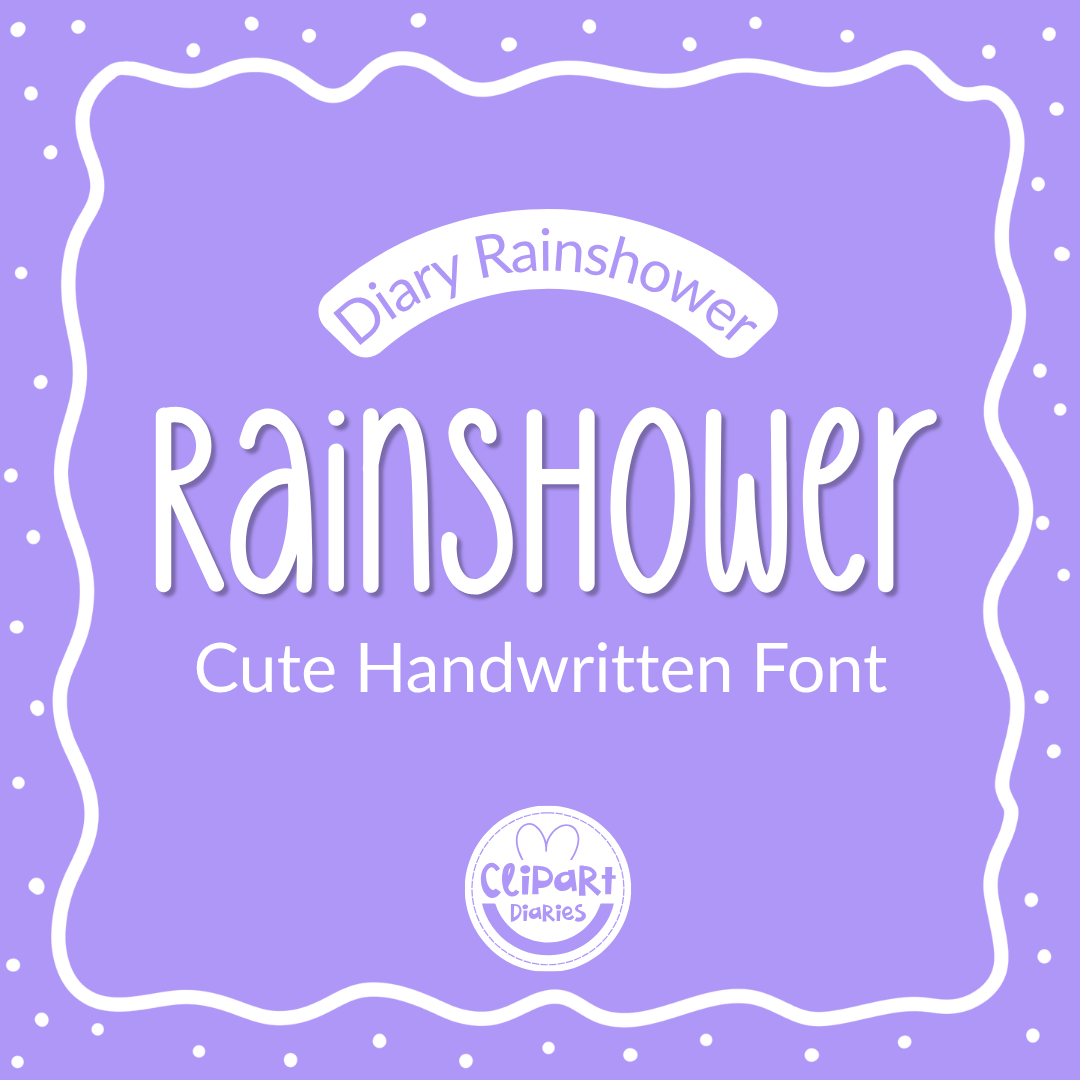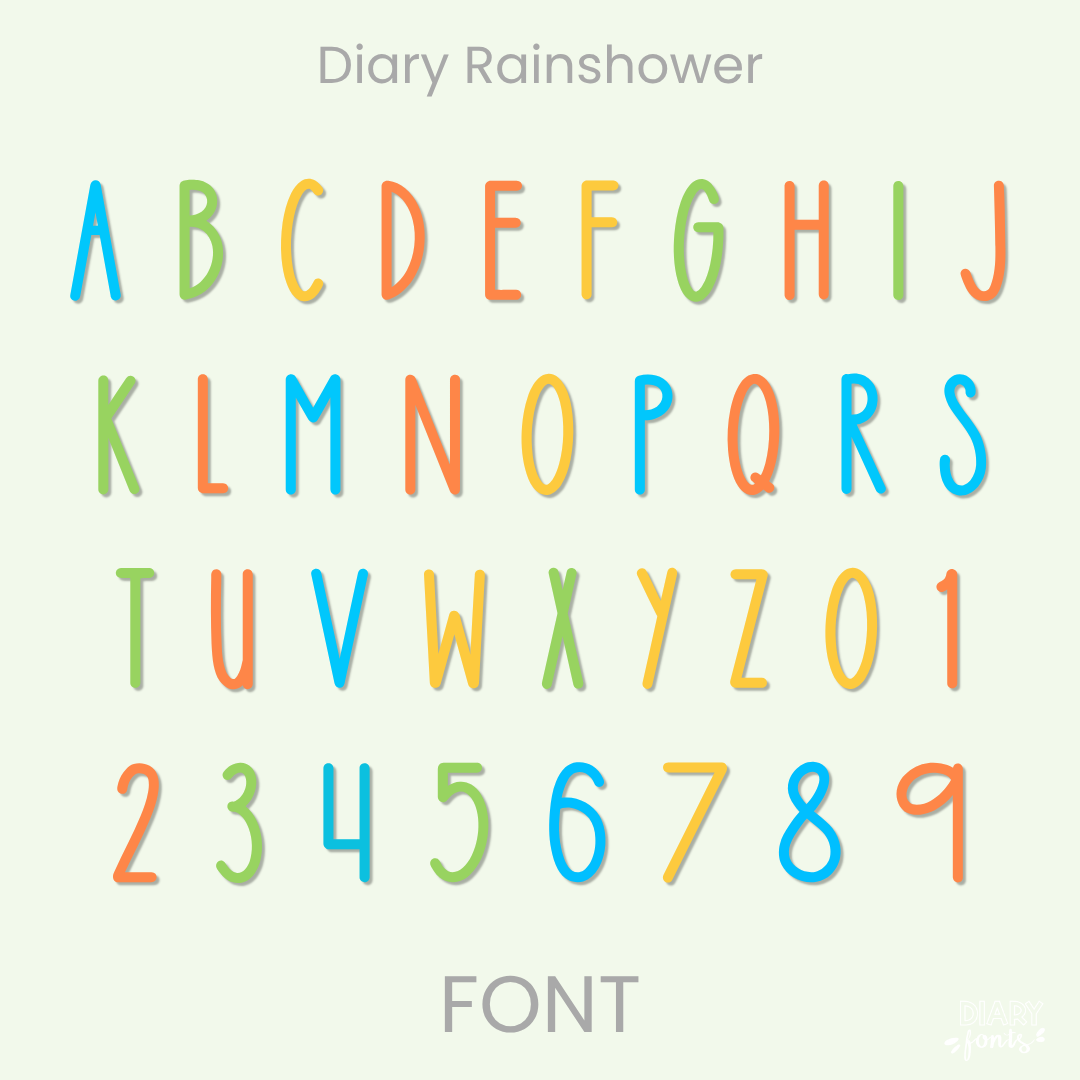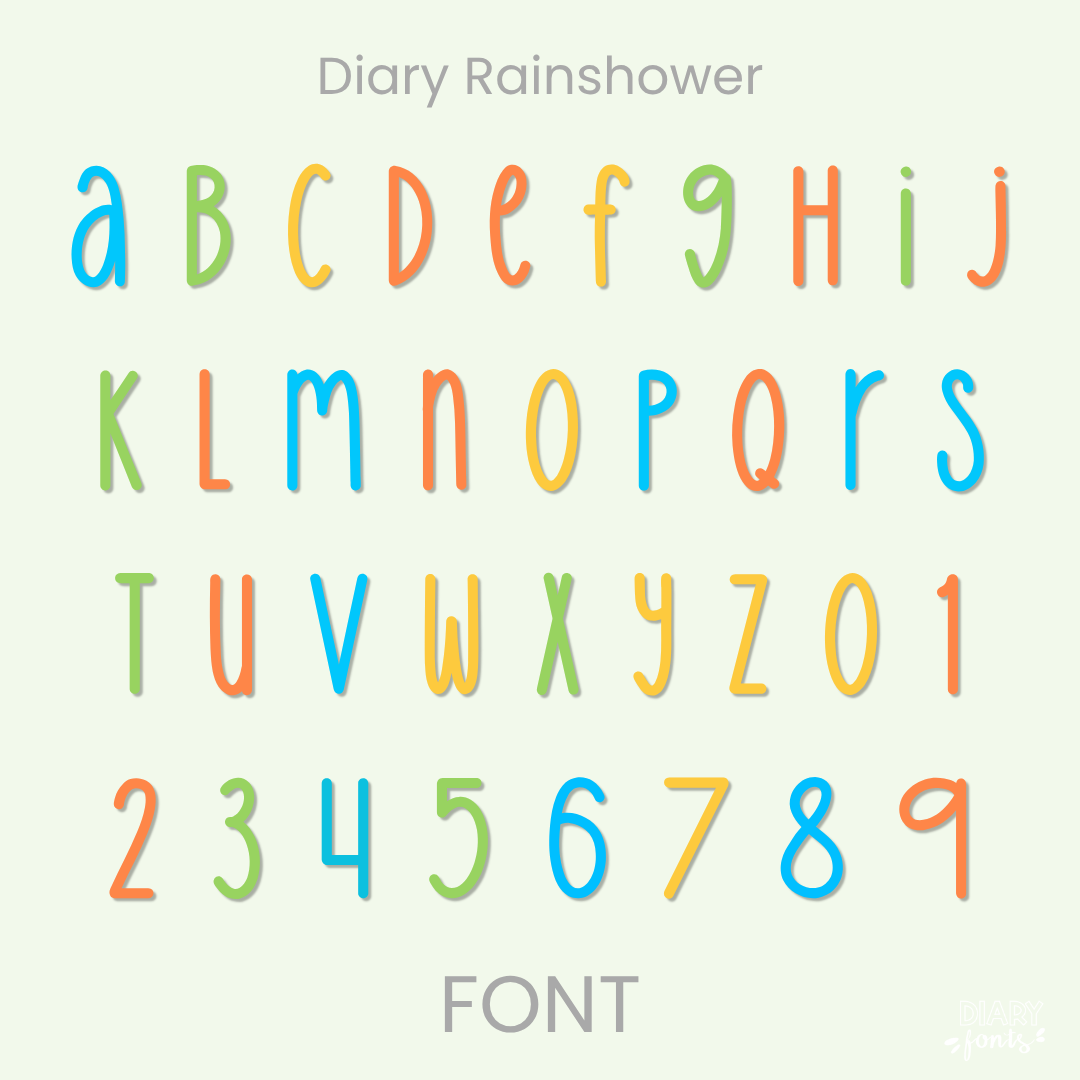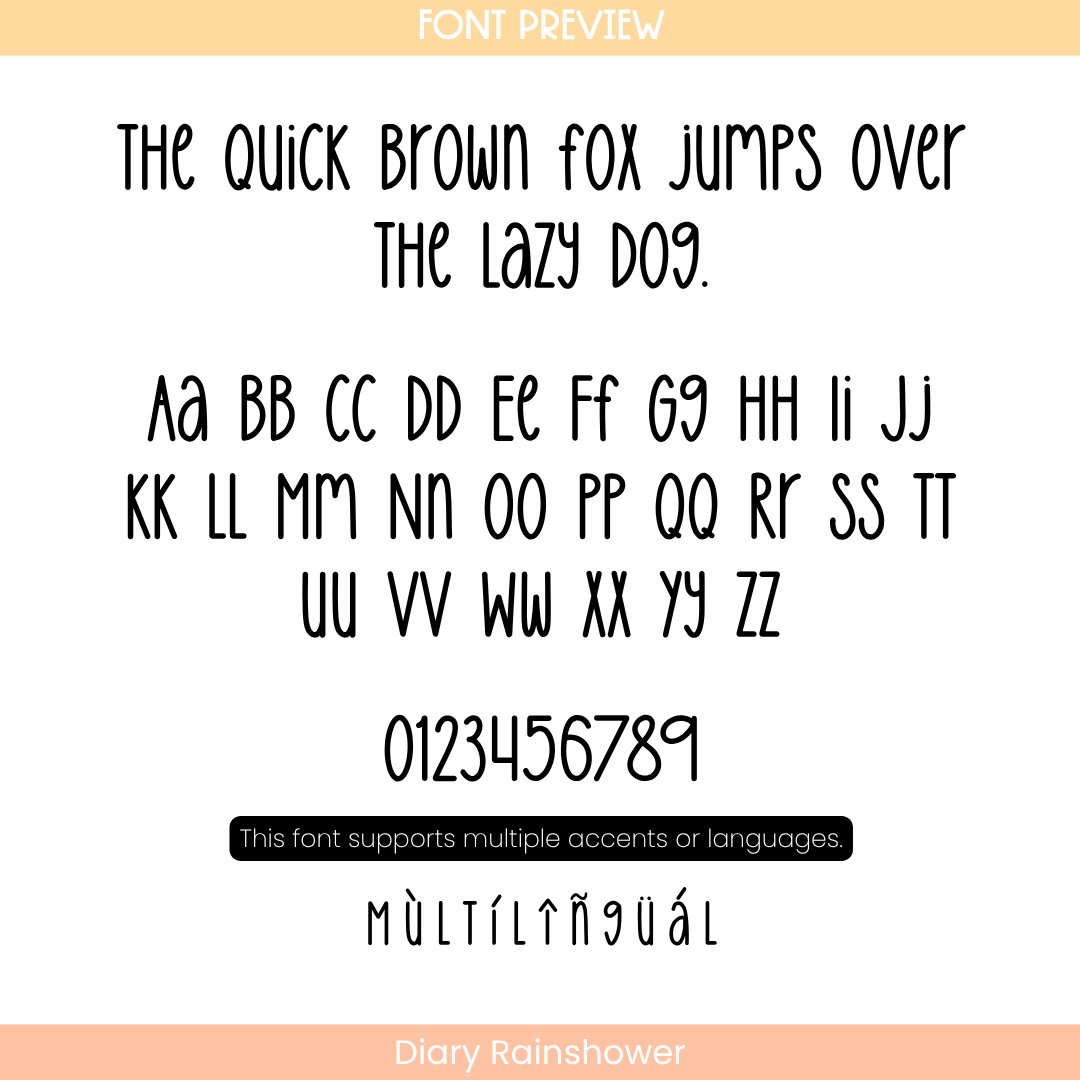
If you want to give your teaching materials a fun, unstructured look, Diary Rainshower is a total must-have. It features a unique mix-and-match design where both the uppercase and lowercase keys give you uppercase-style letters with subtle variations in shape, size, and baseline bounce. It has a medium visual weight with clean, rounded edges that mimic natural pen strokes without looking too uniform.
It is absolutely perfect for adding a casual, lighthearted touch to your morning slide decks, product titles, standout bulletin boards, and task card headers where you want a cozy, hand-drawn look. The package comes with a full set of characters, crisp matching numbers, and multi-accent support for different languages. It sets up in seconds on your computer so you can use it immediately in Canva, MS Office, or Adobe Apps, and it works wonderfully on your iPad with Procreate and GoodNotes. Whether you’re customizing resources for your own classroom or creating premium assets for your online teacher shop, this fun font adds the perfect splash of personality to your toolkit.